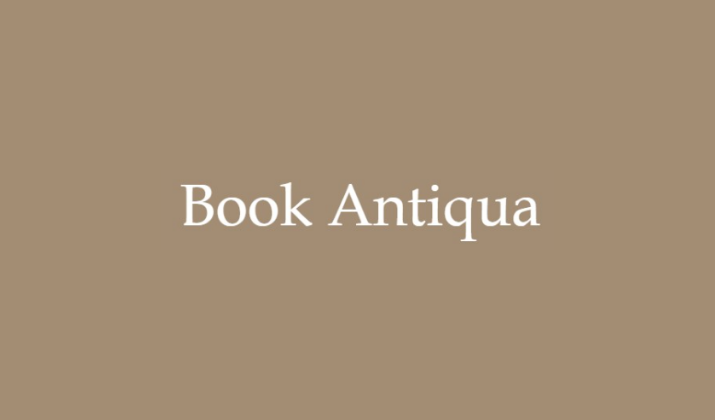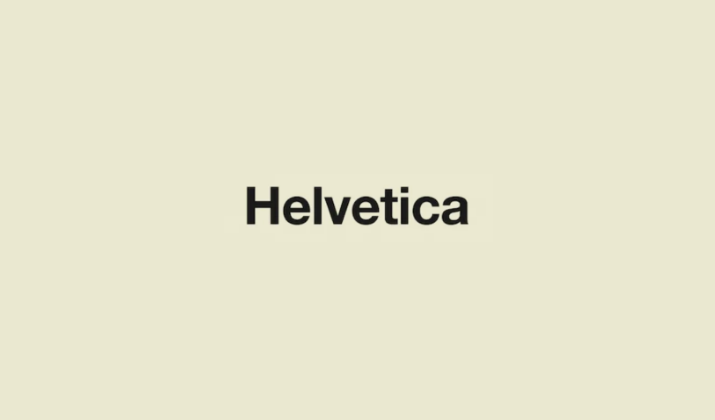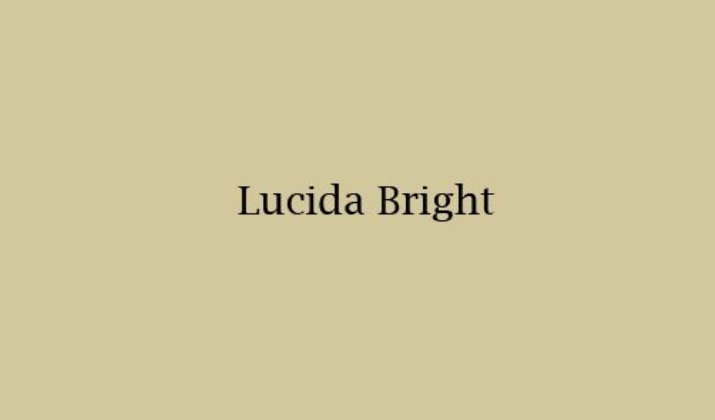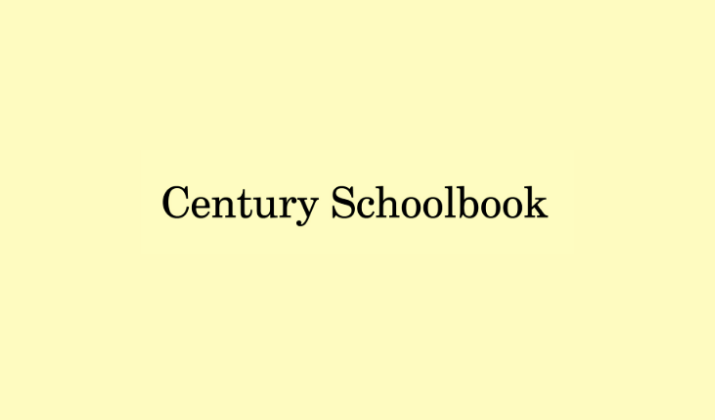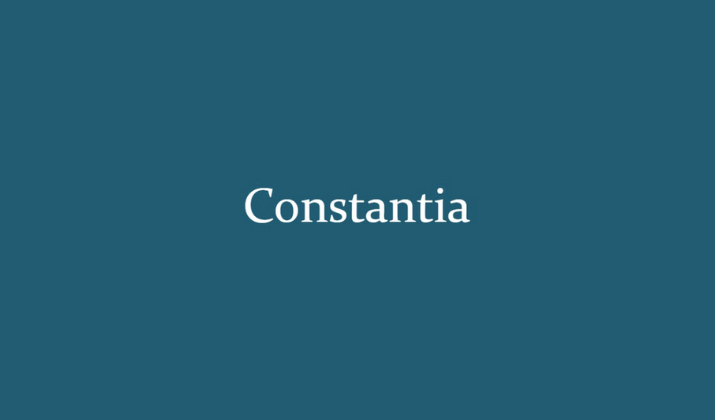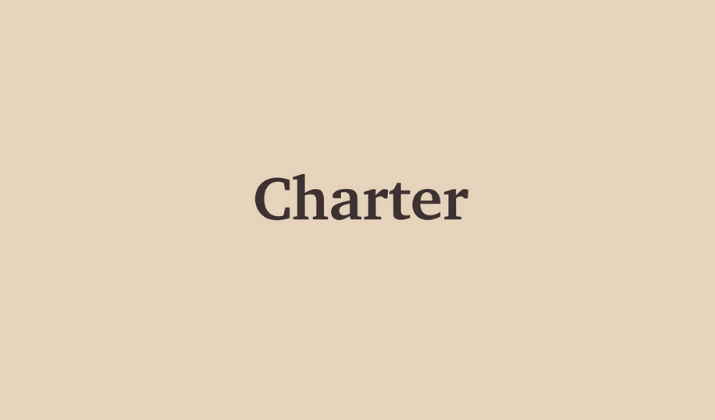
When you’re writing a college essay, research report, or academic paper, every detail matters, including your choice of font.
While your ideas and analysis are the most important components, how you present them can greatly influence readability, professionalism, and even your final grade.
A well-chosen font ensures your work is taken seriously, meets institutional formatting standards, and enhances the overall experience for your reader.
Professors and academic bodies typically recommend clear, formal, and easy-to-read typefaces that don’t distract from the content.
In this post, we’ll explore the 15 best fonts for academic writing and explain why each one is a smart choice for your college assignments.
Let’s begin.
1. Times New Roman
Times New Roman is perhaps the most iconic academic font. Trusted by students and professors alike for decades, it offers a classic, formal aesthetic that fits perfectly with MLA, APA, and Chicago formatting styles. Its serif design lends a scholarly tone to your writing, while the compact spacing makes it efficient for fitting more text into fewer pages. Times New Roman in 12-point size is almost always a safe and expected option for college essays, making it the default choice in many classrooms and writing centers.
2. Arial
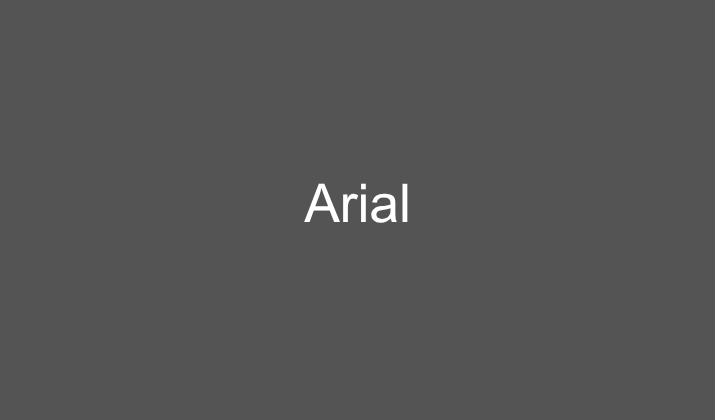
Arial is a widely used sans-serif font known for its clean, simple design and excellent legibility. It has a modern appearance that works well for both printed and digital documents. Unlike more stylized fonts, Arial provides a neutral look that allows your writing to speak for itself without visual distraction. It’s particularly useful for scientific papers, charts, and technical documentation where clarity is essential. Though not always the first recommendation for humanities papers, it’s a solid choice when readability is the top priority.
3. Calibri
As the default font in Microsoft Office for many years, Calibri has become a familiar and accepted choice in both academic and professional settings. This sans-serif font has a sleek, contemporary look that makes reading comfortable on screen and in print. Its rounded edges and smooth lines lend your work a polished and approachable tone. Calibri is also frequently used in APA formatting, making it a strong contender for psychology, business, and education papers.
4. Garamond
Garamond combines timeless beauty with academic credibility. With its elegant curves and slightly artistic flair, it stands out as a sophisticated serif font perfect for literature essays, humanities assignments, and philosophical papers. Garamond’s efficient use of space allows you to slightly reduce your page count without sacrificing readability, which can be helpful when working within strict page limits. Professors often appreciate the font’s graceful presentation and legibility, making it a distinguished alternative to Times New Roman.
5. Cambria
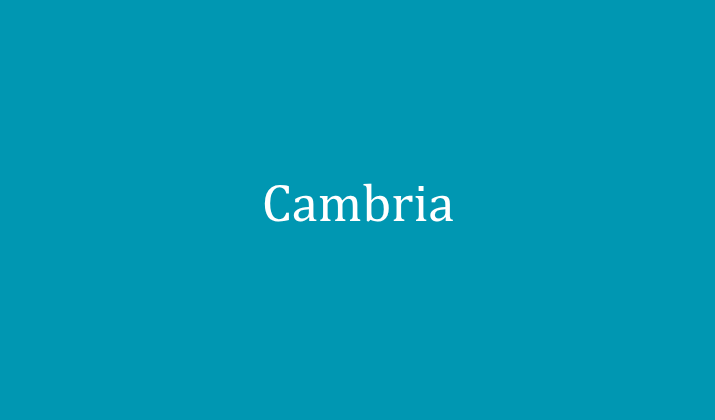
Cambria was designed specifically for clarity and readability, especially on digital screens. As part of Microsoft’s ClearType font collection, it offers a modern serif option that’s both attractive and functional. Cambria is particularly good at handling mathematical equations, footnotes, and other technical formatting elements, making it an excellent choice for STEM students. Its strong letterforms and proportional spacing give your paper a highly organized, professional feel.
6. Georgia
Georgia is a serif font that balances tradition with a modern touch. Originally designed to be legible on low-resolution screens, it maintains its clarity in both print and digital formats. Georgia’s wide letter spacing and distinct character shapes make it extremely readable, even in dense text blocks. It’s a great choice for essays in English, history, or journalism, offering a slightly more relaxed yet still scholarly tone than Times New Roman.
7. Verdana
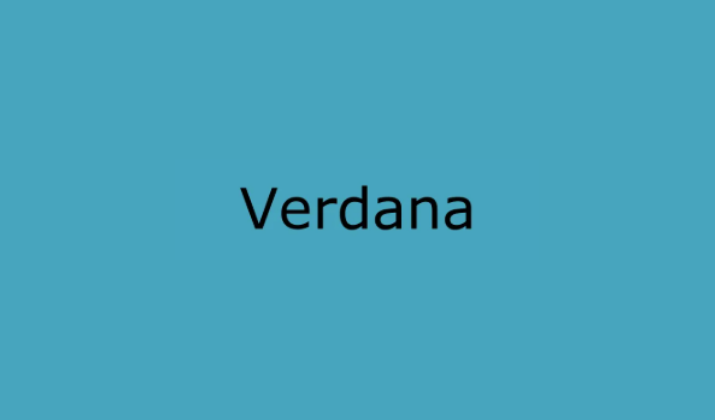
Verdana is a sans-serif font praised for its spacious letterforms and readability, especially at smaller sizes. While not as commonly used in traditional academic papers, it can be an excellent option for digital assignments, accessibility-focused documents, or materials meant for online submission. Its straightforward appearance ensures that nothing distracts from the content itself, making it useful in technical or data-heavy reports.
8. Trebuchet MS
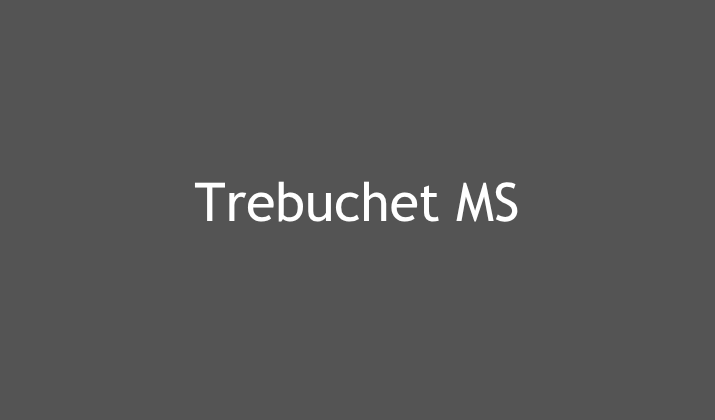
Trebuchet MS brings a modern and energetic feel to your writing without sacrificing professionalism. This sans-serif font was designed for display on computer screens, which makes it ideal for digital essays, slide decks, and online learning submissions. Its bold appearance and strong character lines provide a clear structure that enhances the flow of your arguments. While not always a standard academic font, it’s worth considering for assignments that allow a bit more creative freedom.
Choosing the right font for your college essays, reports, and papers may seem like a small detail, but it can significantly impact the way your work is perceived.
All the fonts listed here are ideal for essays and reports. You can pick the one that appeals you the most.
If you aren’t an adventurer type, stick with the tried-and-true classics like Times New Roman or Arial.
For everyone else including the ones who love experimenting, modern options like Calibri or Garamond are a great choice.